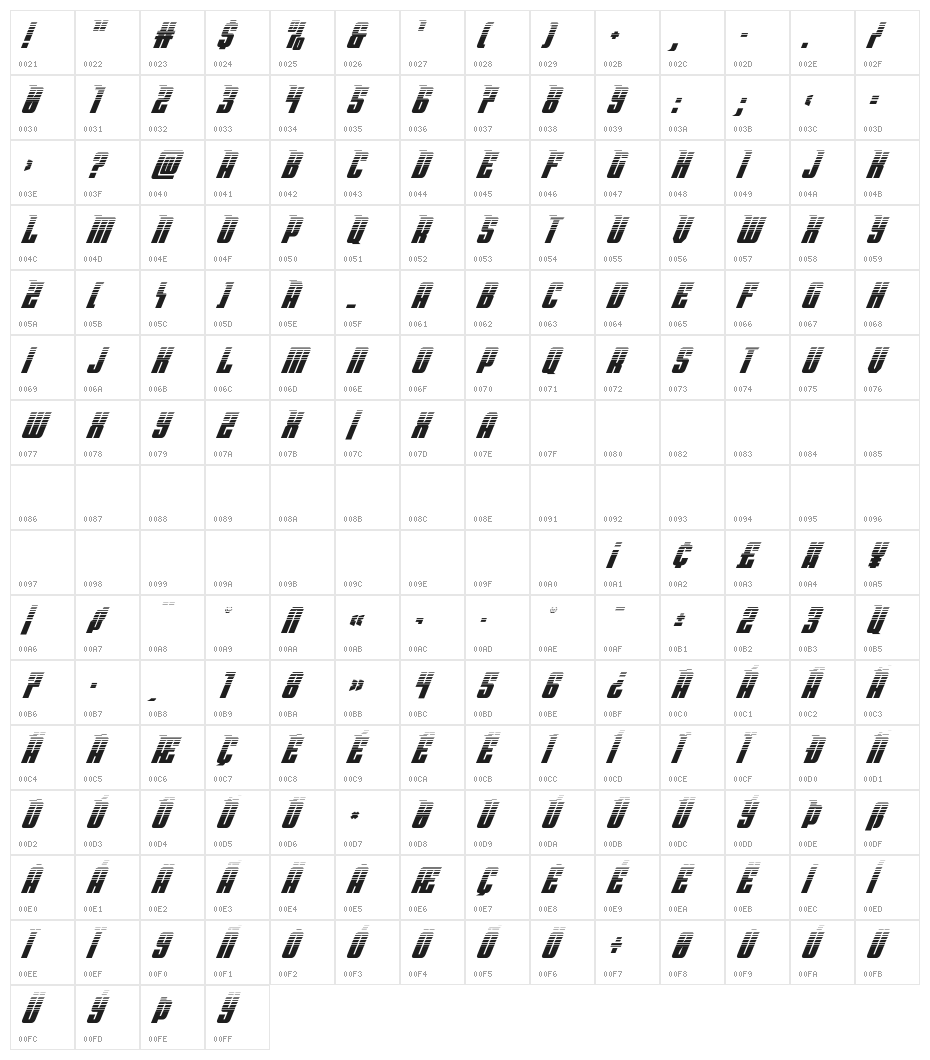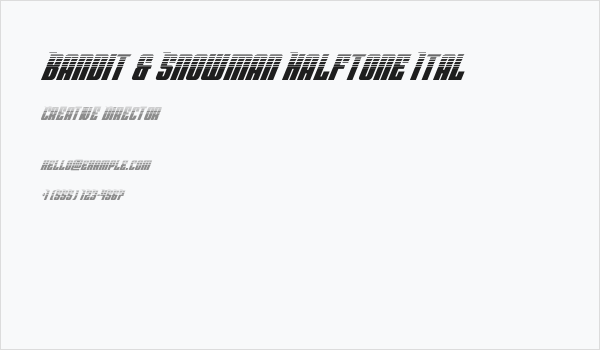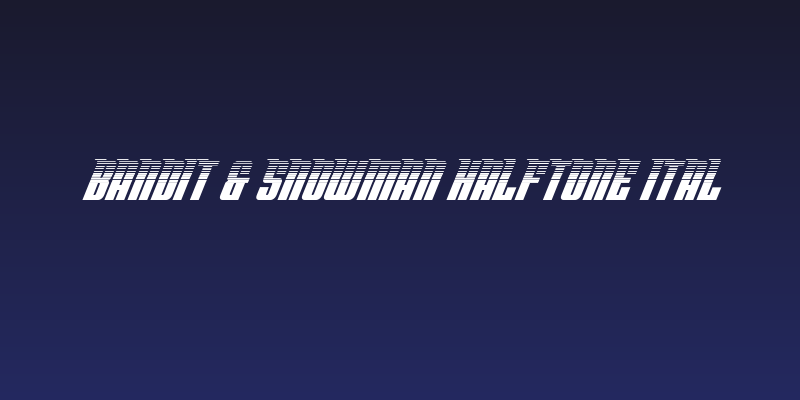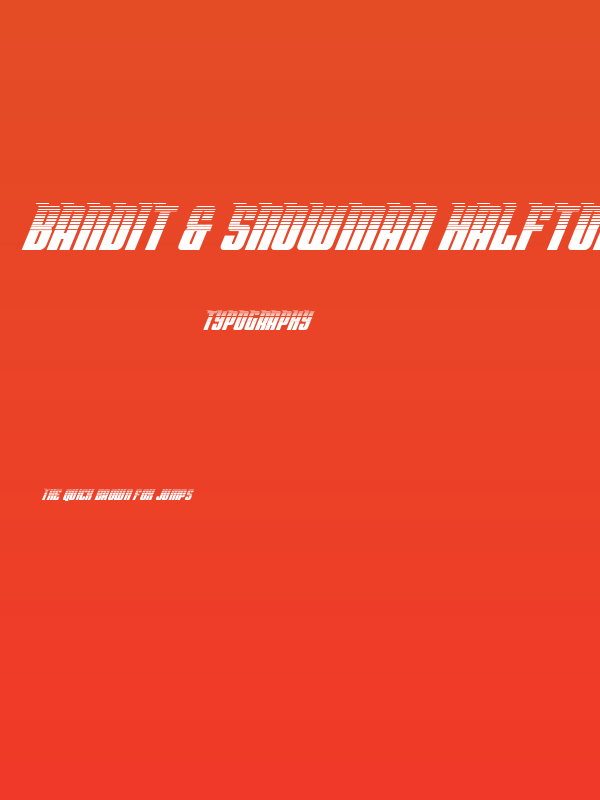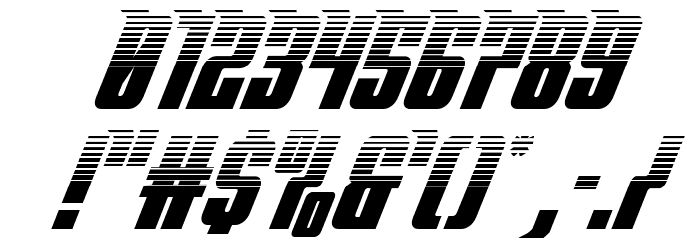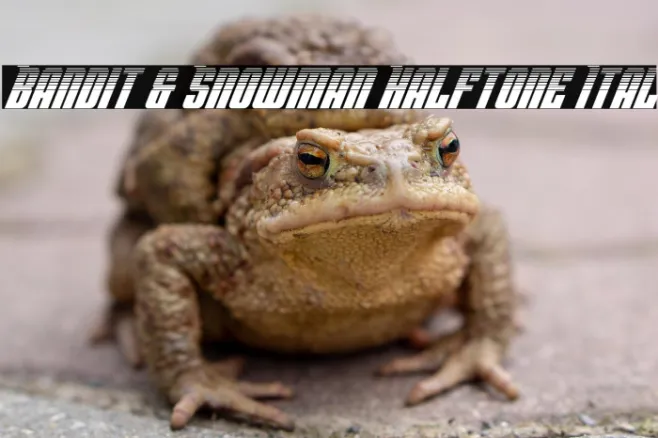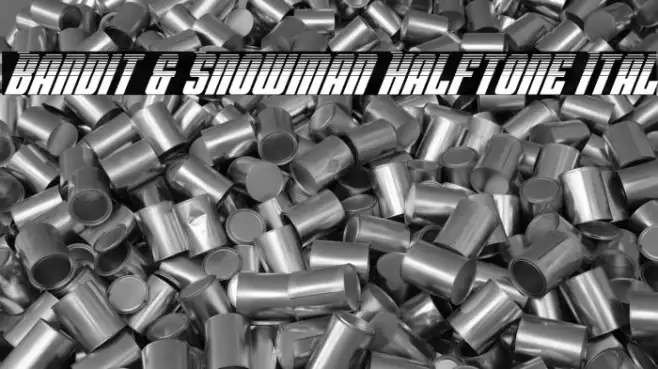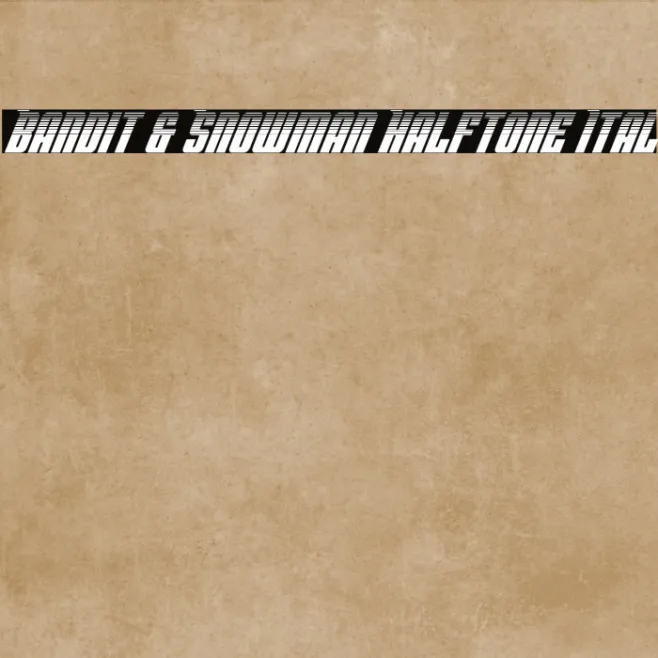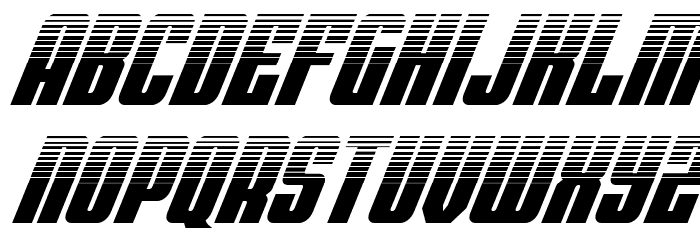
Bandit & Snowman Halftone Ital Font
Bandit & Snowman Halftone Ital Description
This font features a bold, dynamic design with a halftone effect that gives it a sense of movement and energy. The characters are italicized, adding to the impression of speed and urgency. The uppercase letters are particularly striking, with sharp angles and a futuristic aesthetic. The numbers and special characters maintain this bold style, making the font versatile for various uses. The halftone pattern at the top of each character adds a unique texture, enhancing its visual appeal.